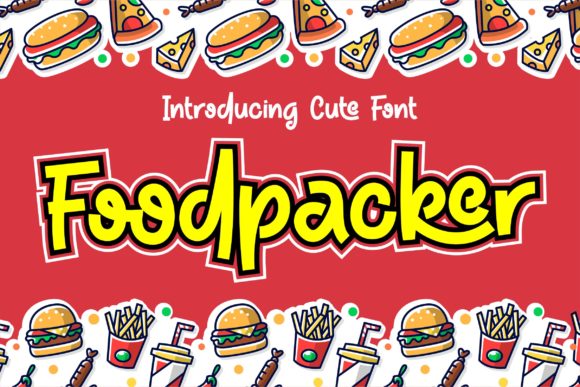
**Unleash the Foodpacker Charm on Your Culinary Creations**
Introducing Foodpacker, the irresistible display font that tantalizes your designs with a splash of playful joy. Its flamboyant curves and whimsical strokes dance harmoniously, inviting you to savor the sweetness of each letterform.
Picture your packaging adorned with Foodpacker's irresistible charm. Its vibrant energy transforms your creations into delectable delights that ignite cravings. Let your brand's message burst forth with a zest that draws customers like moths to a flame.
Whether you're crafting mouthwatering menus, tantalizing posters, or eye-catching labels, Foodpacker becomes an essential ingredient in your culinary arsenal. Its captivating presence elevates your designs beyond the ordinary, leaving a lasting impression on every palate.
Don't resist the temptation to add Foodpacker to your typographic pantry. Its playful spirit and captivating essence will infuse your culinary adventures with an unforgettable zest. Embrace the joy of Foodpacker and let your creations radiate with a sweetness that satisfies the soul.